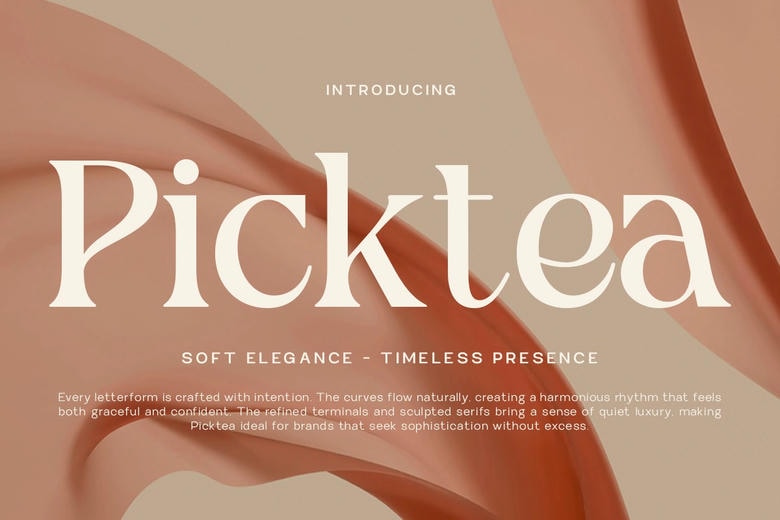
Picktea Font
Picktea is a sophisticated modern display typeface, which adds elegance and silent luxury to your creative work. It is an ideal modern serif typeface suitable in logos, fashion branding, magazines headlines, beauty packaging and high-end design layouts. Having smooth lines and harmonious ratios, Picktea makes a beautiful typographic impression that improves both web and print design.
Picktea Serif Font